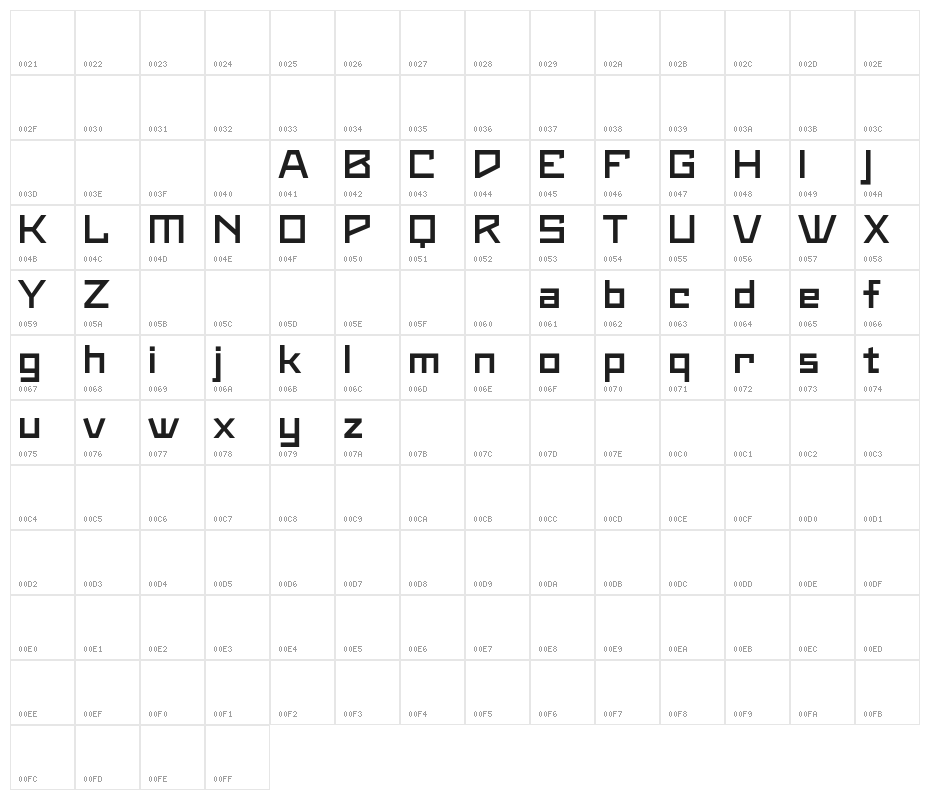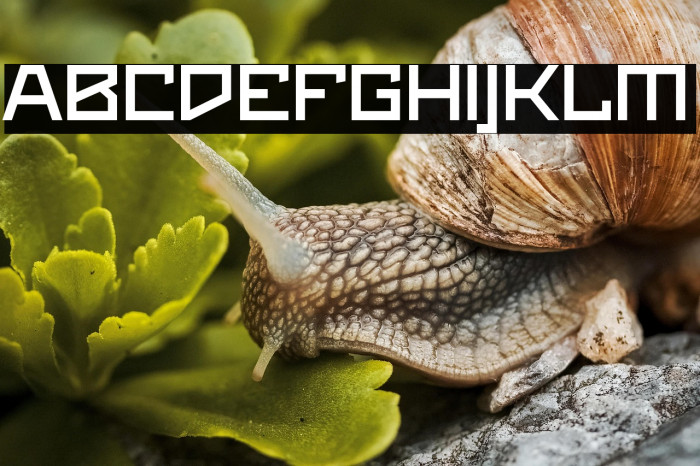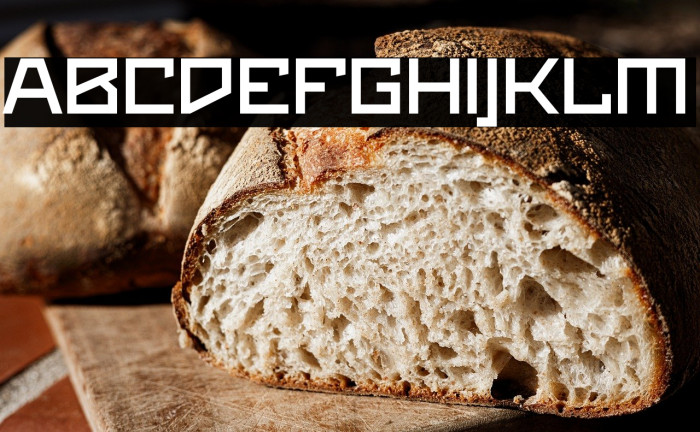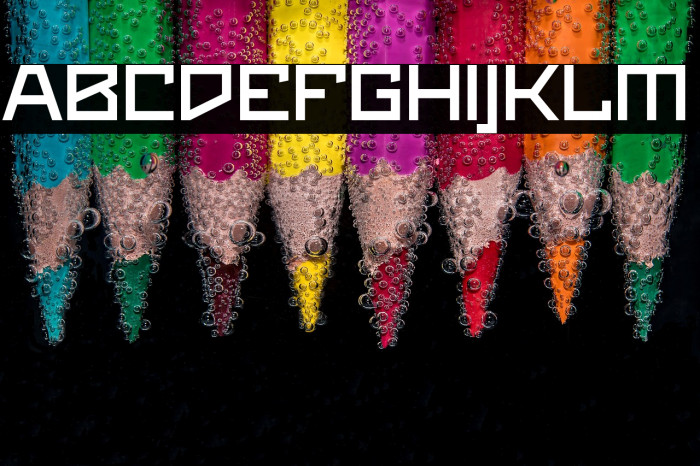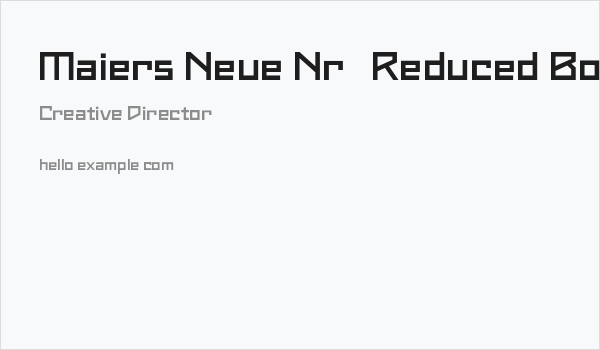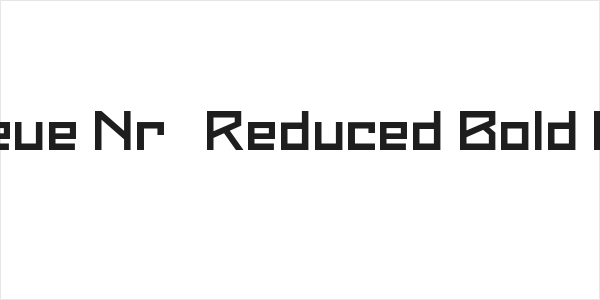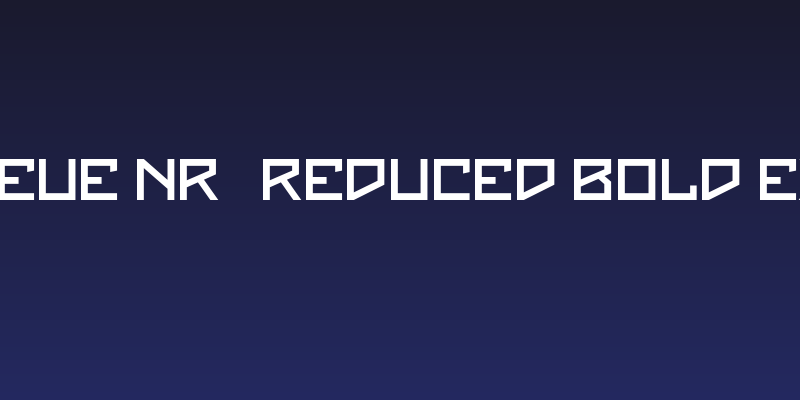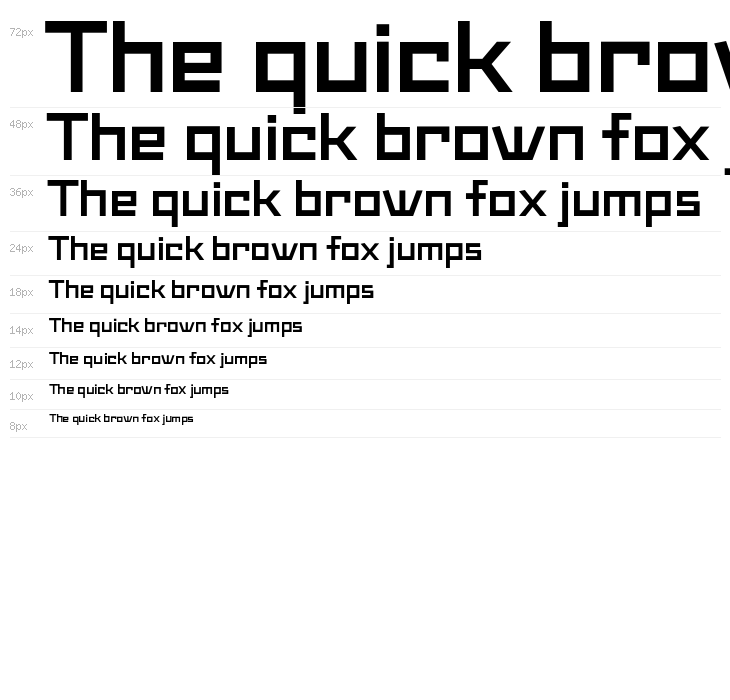
Maiers Neue Nr.8 Reduced Bold Expanded Font
Maiers Neue Nr.8 Reduced Bold Expanded Description
This font features a bold and expanded style with a geometric and structured appearance. The characters are crafted with straight lines and sharp angles, giving it a modern and industrial feel. The uppercase letters are uniform in height, while the lowercase letters maintain a consistent baseline, enhancing readability. The font's expanded width allows for a strong presence, making it ideal for impactful designs. Its clean and precise lines contribute to a professional and contemporary aesthetic, suitable for various design applications.
| Proposed Projects | Ideal for branding, headlines, posters, and signage where a strong, modern look is desired. |